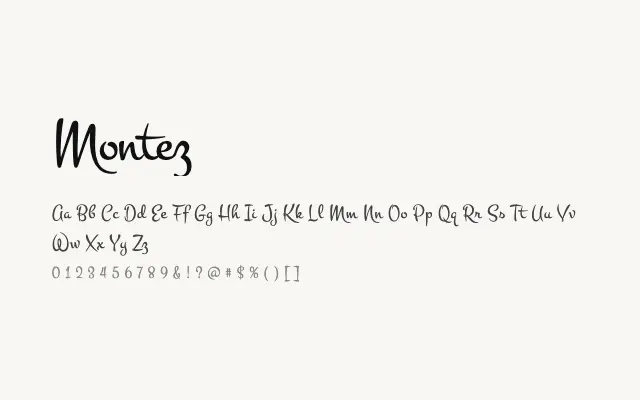
A simple, looping casual script with an informal, hand-written charm suited to lighthearted display use.
Montez offers a breezy, unpretentious script aesthetic that works for informal branding, social media graphics, and decorative headings where approachability matters more than refinement. Its single Regular weight and limited script vocabulary means it functions best in short bursts of text at large sizes. It lacks the sophistication of more carefully crafted scripts but delivers a cheerful, accessible personality.
A loose, informal looping script with a hand-drawn quality and relatively low stroke contrast. The letterforms feel relaxed and approachable rather than formally calligraphic.